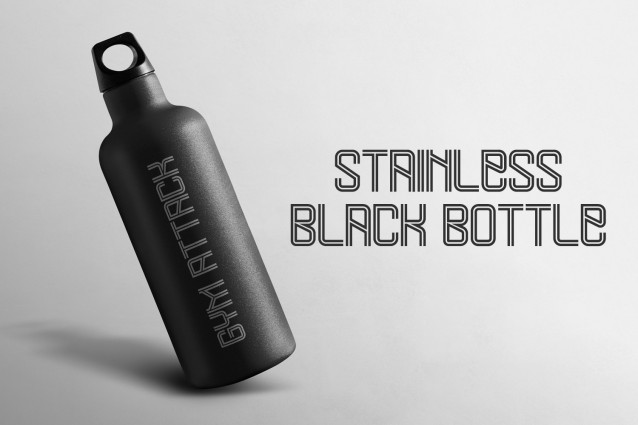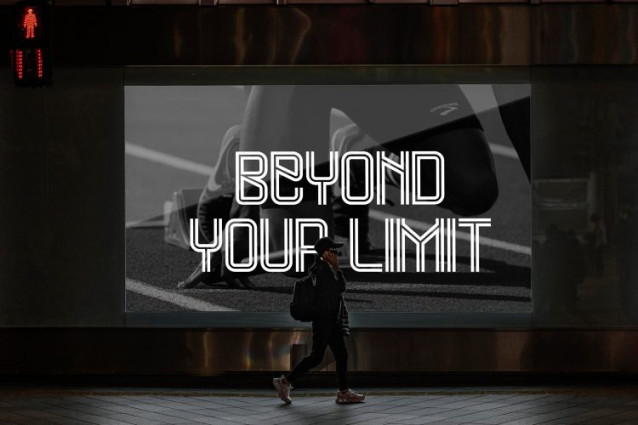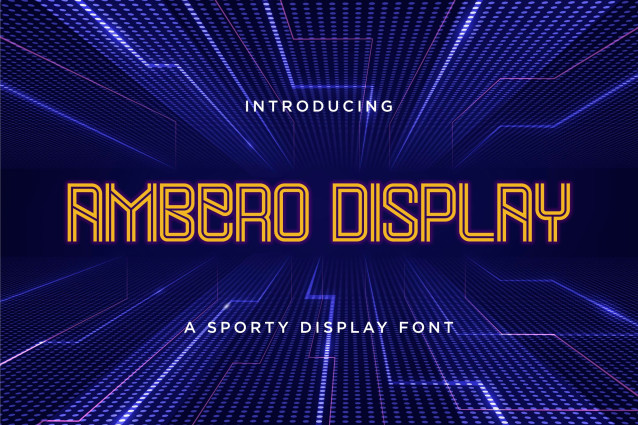
Ambero Display Font
Ambero Display Font is a modern sporty font designed to bring energy and dynamism to your projects. With its sleek geometric letterforms and unique line details, this typeface is perfect for sports branding, fitness apparel, gaming, and futuristic-themed designs. It’s bold and structured appearance ensures high readability, making it an excellent choice for headlines, posters, and digital content. Ambero Display also supports multiple languages, allowing for versatile usage across global markets. Please make sure to elevate your typography with this bold and striking display font.